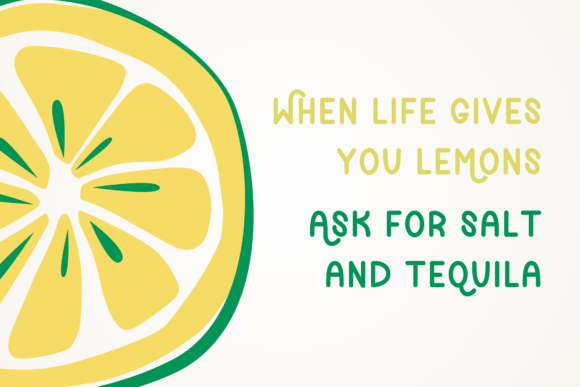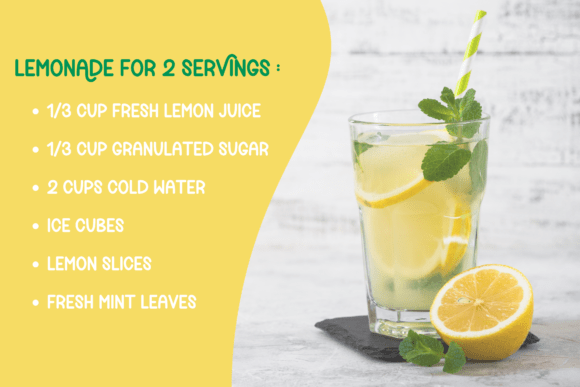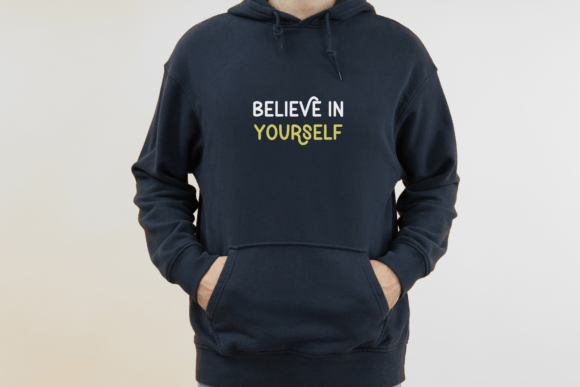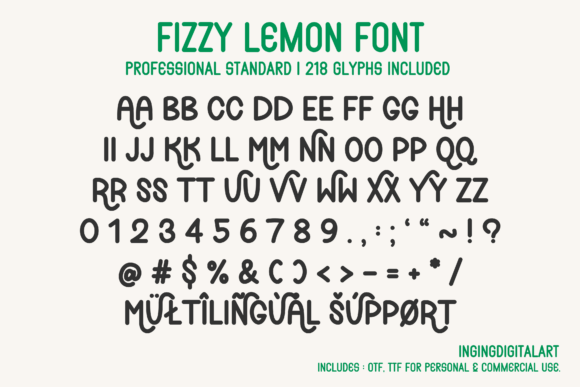
Fizzy Lemon Font: Add a Refreshing Twist to Your Creative Projects
Are you tired of using the same old fonts in your creative projects? Do you want to add a touch of playfulness and modernity to your designs? Look no further than Fizzy Lemon Font, a quirky sans font that’s sure to zest up your brand identities, merchandise, digital content, and more!
What Makes Fizzy Lemon Font So Special?
Fizzy Lemon Font is a unique and energetic typeface that’s designed to make any statement stand out. Its bouncy letterforms are not only visually appealing but also remarkably easy to read, making it a highly versatile choice for a wide range of creative applications. Whether you’re a designer, craft, or simply someone who loves to express themselves through creative projects, Fizzy Lemon Font is the perfect choice for adding a refreshing touch to your work.
Key Features of Fizzy Lemon Font
- 218 Glyphs: Fizzy Lemon Font includes a professional standard set of 218 glyphs, complete with uppercase, lowercase, numbers, and full multilingual support.
- Playful yet Legible: This font perfectly balances playful energy with clean, modern legibility, making it easy to read and visually appealing.
- Versatile: Fizzy Lemon Font is suitable for a wide range of creative applications, from crafting vibrant brand identities to designing impactful merchandise and creating engaging digital content.
Use Fizzy Lemon Font to Elevate Your Designs
So, how can you use Fizzy Lemon Font to take your creative projects to the next level? Here are just a few ideas to get you started:
1. Craft Vibrant Brand Identities
Fizzy Lemon Font is the perfect choice for creating a bold and eye-catching brand identity. Its unique letterforms and playful energy make it ideal for logos, signage, and other marketing materials that need to stand out.
2. Design Impactful Merchandise
Whether you’re creating t-shirts, mugs, or other merchandise, Fizzy Lemon Font is sure to make your designs pop. Its bouncy letterforms and modern legibility make it easy to read and visually appealing, even on smaller items.
3. Create Engaging Digital Content
Fizzy Lemon Font is also perfect for creating engaging digital content, such as social media graphics, blog posts, and email newsletters. Its playful energy and clean legibility make it easy to read and visually appealing, even on smaller screens.
4. Organize Creative Layouts with a Refreshing Touch
Fizzy Lemon Font can also be used to add a touch of personality to your creative layouts. Whether you’re designing a brochure, flyer, or other marketing materials, this font is sure to add a refreshing twist to your designs.
Why Choose Fizzy Lemon Font?
So, why should you choose Fizzy Lemon Font for your creative projects? Here are just a few reasons:
- Unique and Eye-Catching: Fizzy Lemon Font is a one-of-a-kind typeface that’s sure to make your designs stand out.
- Highly Versatile: This font is suitable for a wide range of creative applications, from branding and merchandise to digital content and more.
- Easy to Read: Despite its playful energy, Fizzy Lemon Font is remarkably easy to read, making it perfect for body text and other applications where legibility is key.
In conclusion, Fizzy Lemon Font is a quirky sans font that’s sure to add a refreshing twist to your creative projects. With its unique letterforms, playful energy, and clean legibility, this font is perfect for designers, crafters, and anyone who wants to add a touch of personality to their designs. So why wait? Download Fizzy Lemon Font today and start zesting up your creative projects!